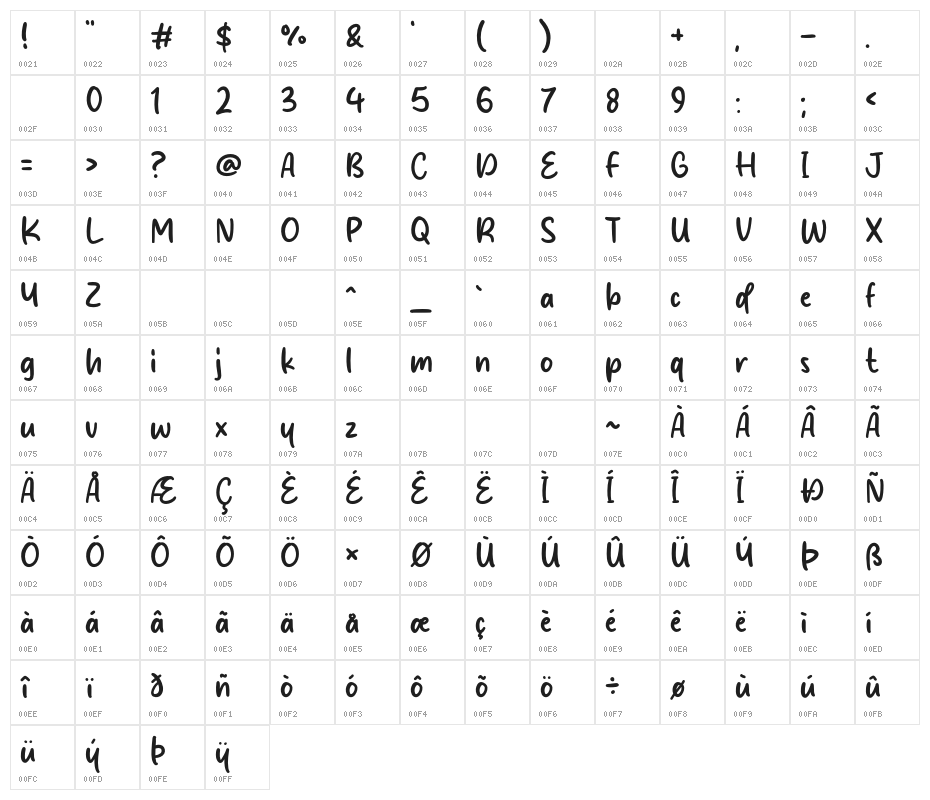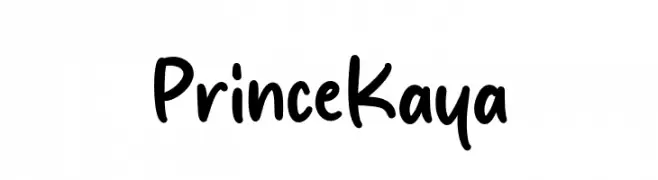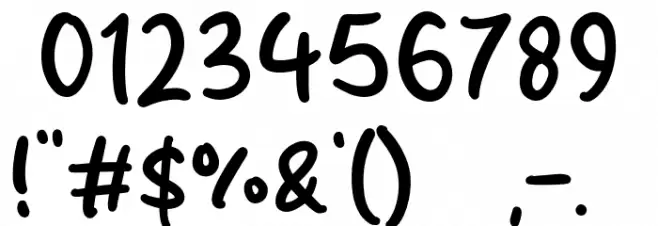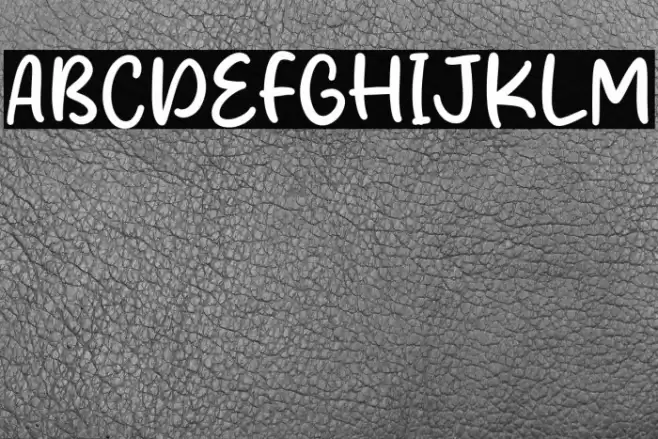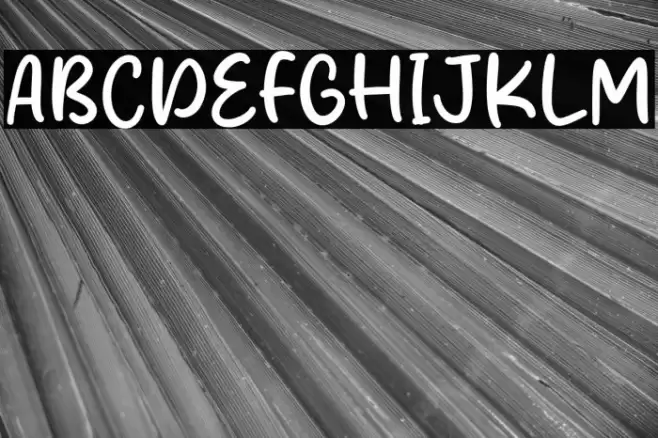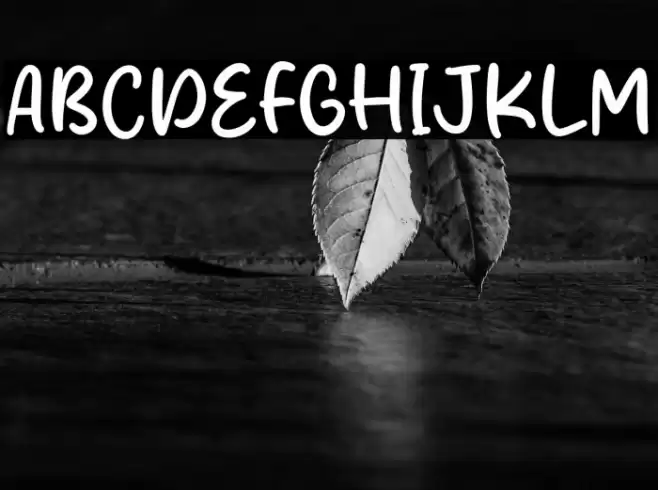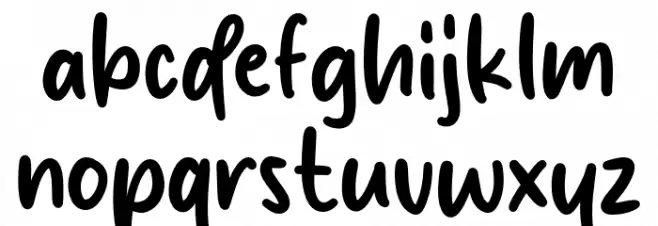
Prince Kaya Font
| Style général | Casual |
| Cas d'utilisation | Headlines, Logos, Informal text |
| Projets proposés | Ideal for children's books, greeting cards, playful branding, and casual invitations. |